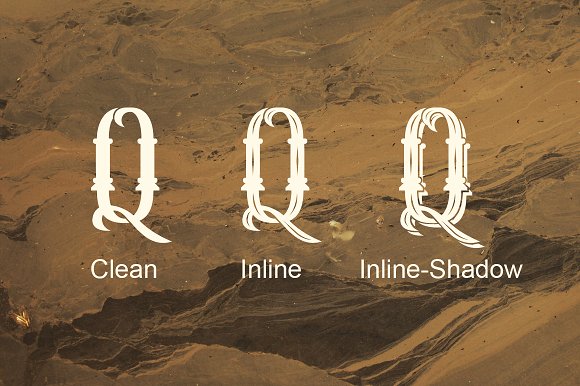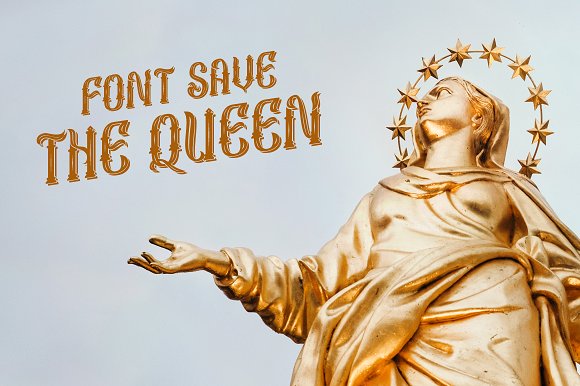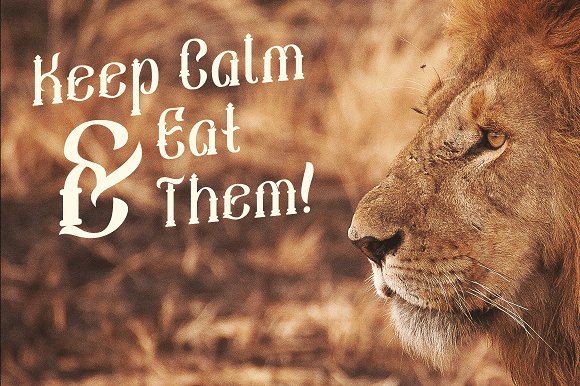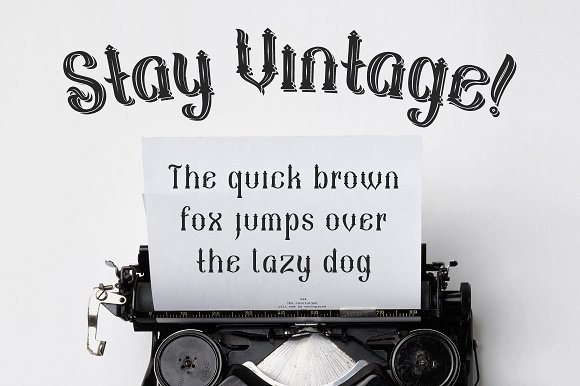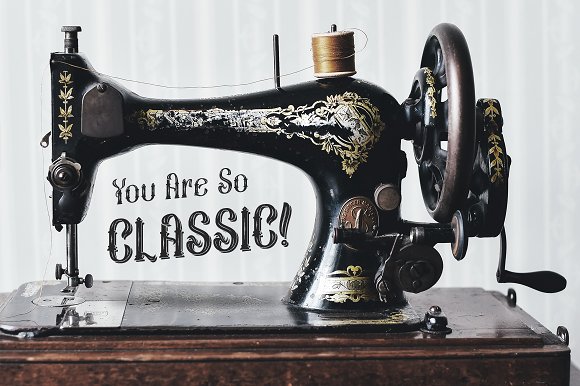
Introduction to Sekatoan Font
Sekatoan is a classical typeface that comes in 3 unique styles that are great to mix and match.
Key Features of Sekatoan Font
Why Choose Sekatoan Font?